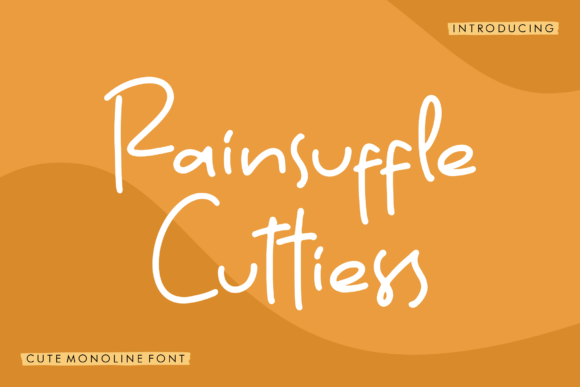
Embark on a Typographic Saga with Rainsuffle Cutties: The Font that Captures Cinematic Charm
Immerse yourself in the world of captivating storytelling with Rainsuffle Cutties, a font that transports your designs to the silver screen. Inspired by the allure of movie posters, this script font weaves a spell of visual enchantment, evoking the emotions and dreams that cinema ignites.
Rainsuffle Cutties is a cinematic masterpiece, a font that dances with elegance and finesse. Its monoline strokes glide effortlessly, forming characters that exude a sense of timeless beauty. With its sweeping curves and graceful swashes, Rainsuffle Cutties commands attention, demanding to be seen and admired.
Step into the spotlight and let Rainsuffle Cutties elevate your creative projects to new heights. Whether you're designing logos, branding projects, homeware designs, product packaging, or any other project that craves a touch of cinematic magic, Rainsuffle Cutties is your muse.
From the grandest marquees to the most intimate indie films, Rainsuffle Cutties captures the essence of storytelling in every letterform. Its versatility knows no bounds, adapting seamlessly to a myriad of projects, each one imbued with a touch of cinematic flair.
With Rainsuffle Cutties, you'll discover a font that's more than just a collection of characters; it's a gateway to a world of imagination and creativity. It's a font that empowers you to tell your story, to captivate your audience, and to leave an indelible mark on their hearts.